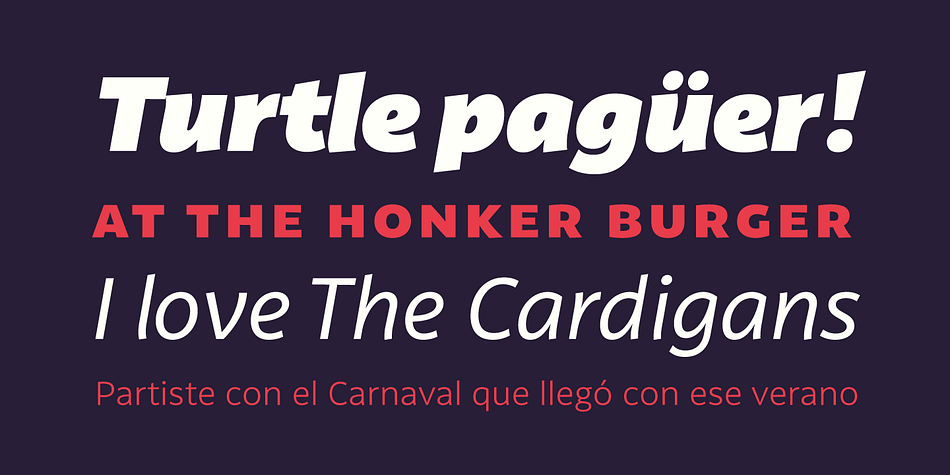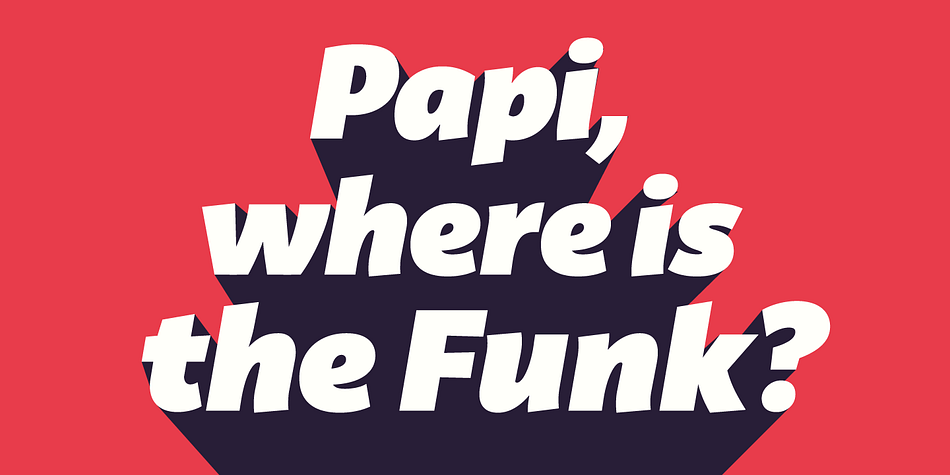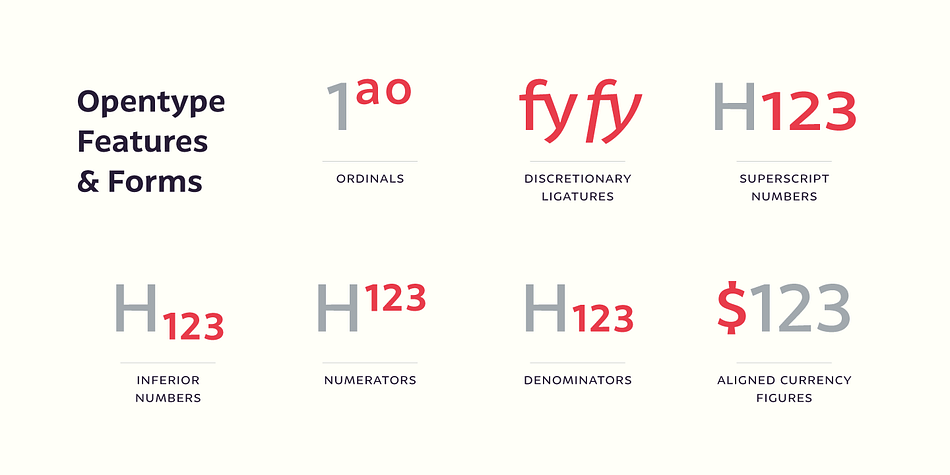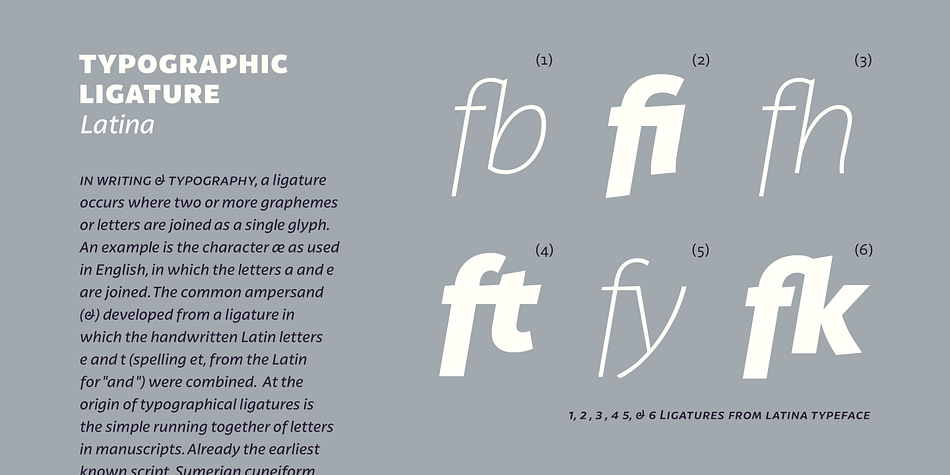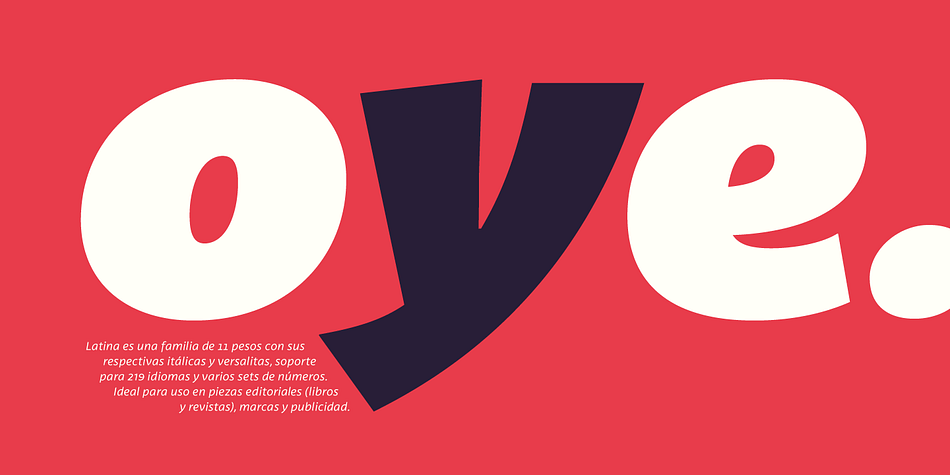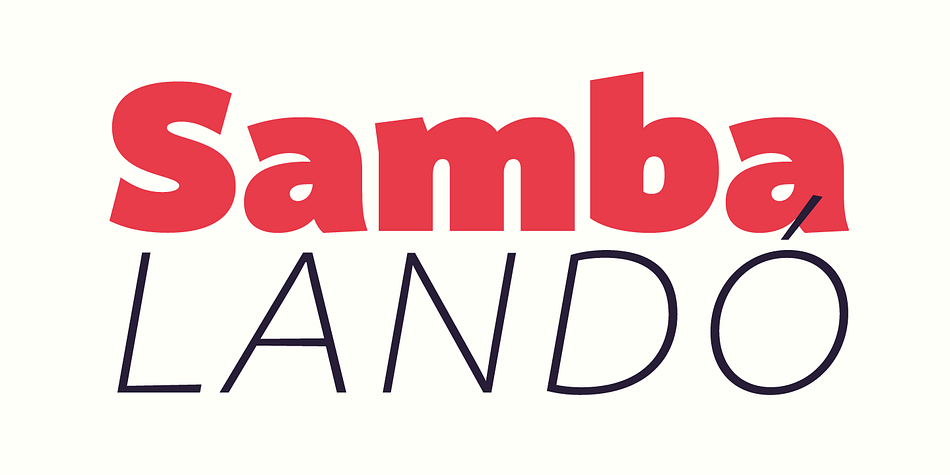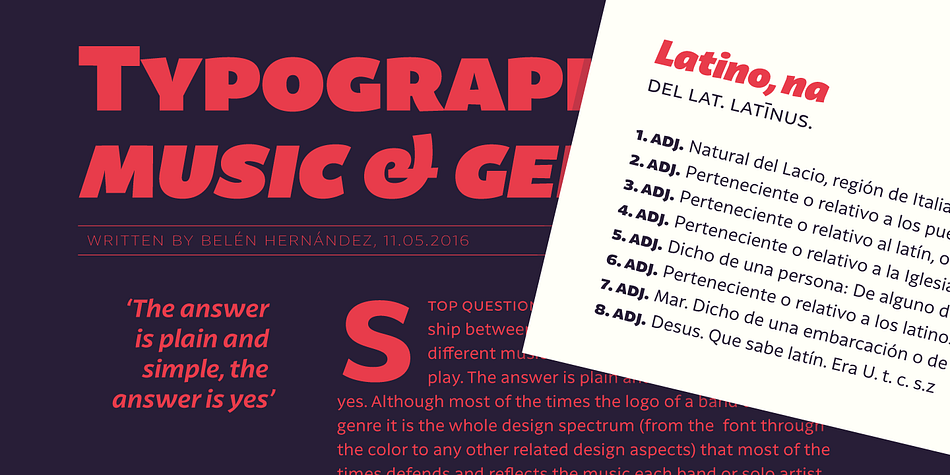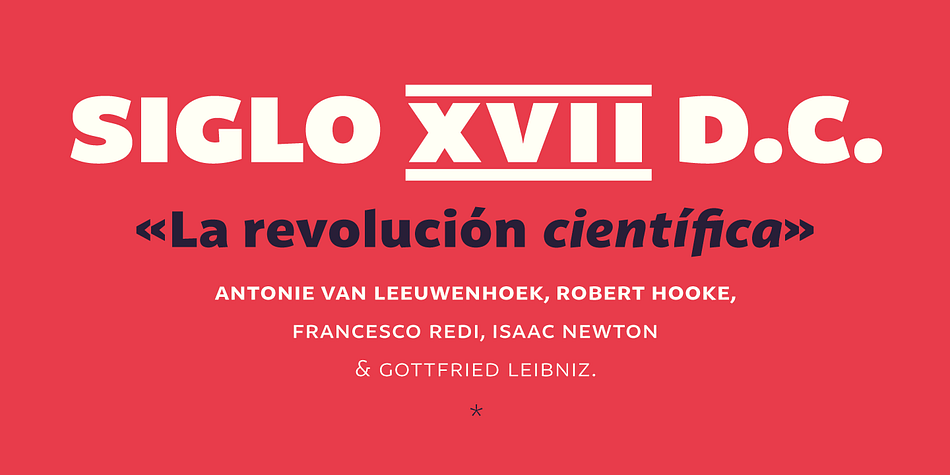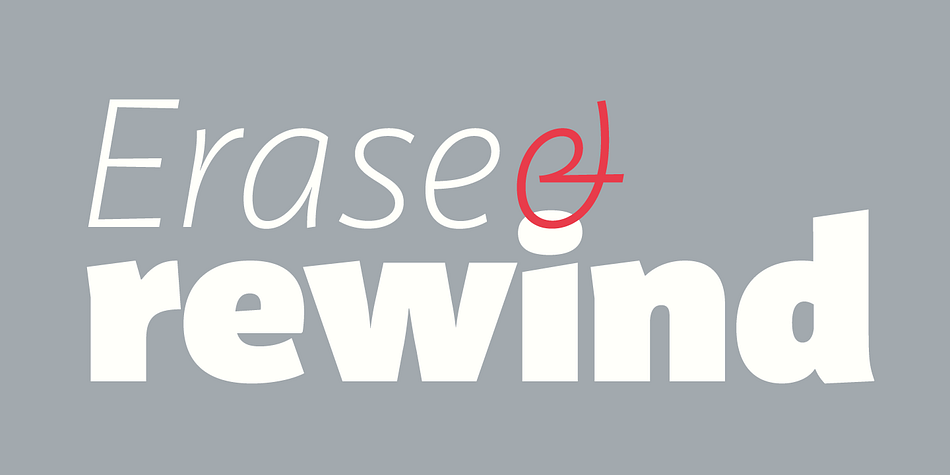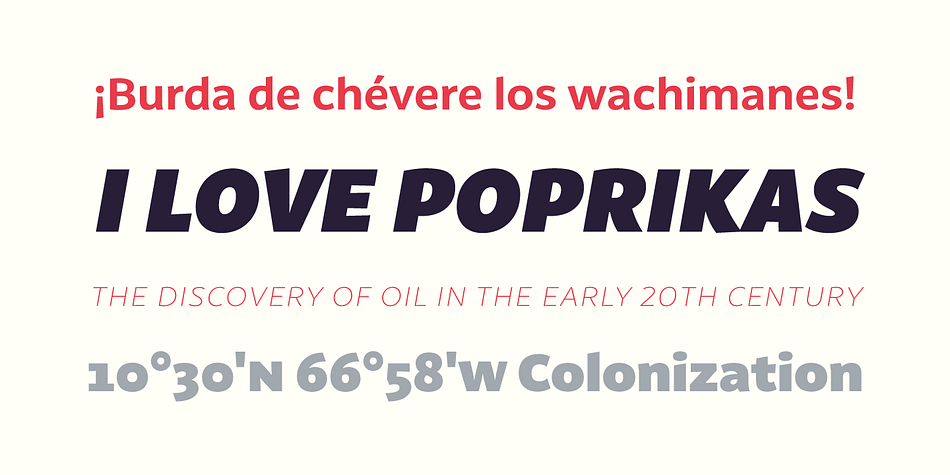
Designed by Rodrigo Fuenzalida and Latinotype Team, Latina is a sans serif font family. This typeface has twenty-two styles and was published by Latinotype.
Latina is our first humanist typeface designed for use in continuous text. This font is based on calligraphy, but calligraphic features have been changed in order to make Latina a more neutral font. This prevents readers from losing their focus when reading continuous text. On the other hand, these same features get highlighted when using the font for headlines or display text.
This 11-weight family includes italics and small caps, and supports 219 different languages as well as several sets of figures. Latina is the perfect choice for publishing design (books and magazines), branding and advertising.